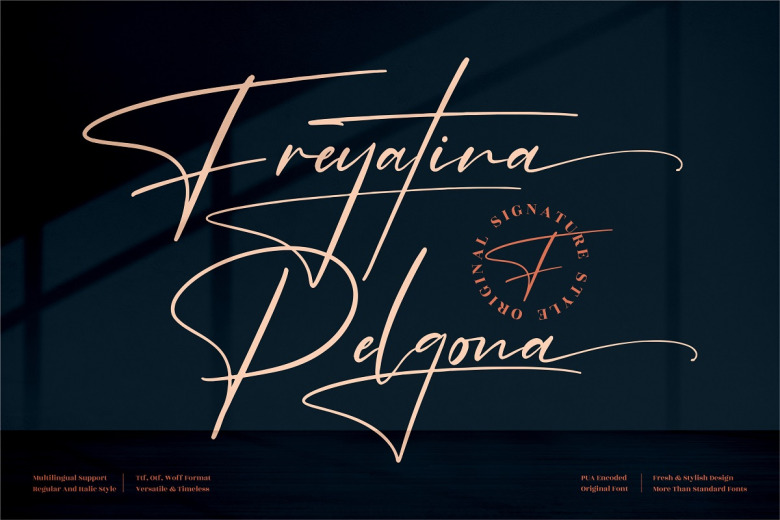
Freyatina Pelgona Font
Freyatina Pelgona possesses an elegant calligraphic style with fine upstrokes and downstrokes forming each letter. Her script flows fluidly across the page with an air of sophistication. Alternating between short, quick phrases and more elaborate, winding sentences keeps readers engaged. While some words are penned simply, others feature ornate swirls and curls adding richness to both the texture and meaning.
Freyatina Pelgona Signature Font